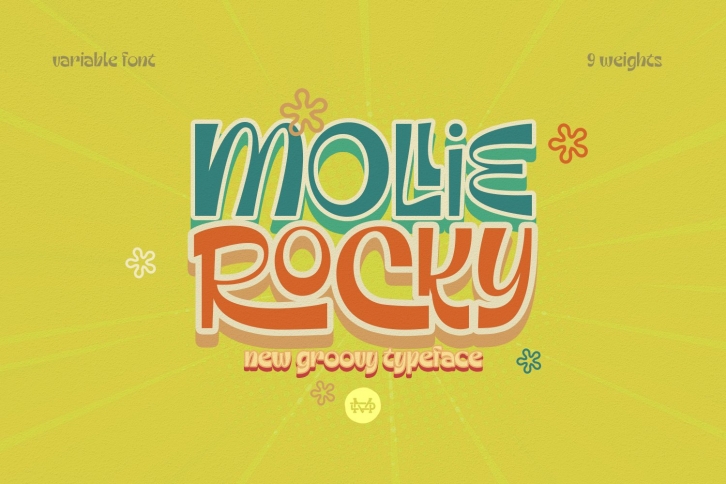
Mollie Rocky is a beautiful font that was designed by madeDeduk. It's a great choice for designers and creatives who need such a font. It was released on November 13, 2020 and the file size is 16.63 MB. Mollie Rocky may give a more youthful, expressive and casual look to your project. It is a very beautiful, refined, elegant, and high-quality font.